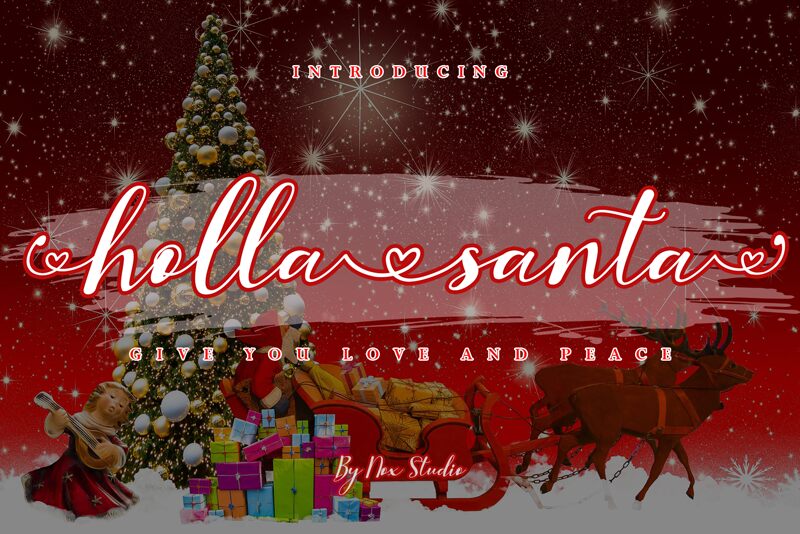
Holla Santa
Holla Santa is a charming and delightful font designed by Nox Studio 2021 - Sarif Hidayat. Its lovely handwritten style exudes warmth and friendliness, making it perfect for a wide range of creative projects. Whether you're designing invitations, greeting cards, logos or posters, this versatile font will add a touch of whimsy to your work. With its bold strokes and playful curves, Holla Santa is particularly well-suited for festive occasions such as Christmas parties, weddings or birthdays. So why not spread some joy with Holla Santa today?